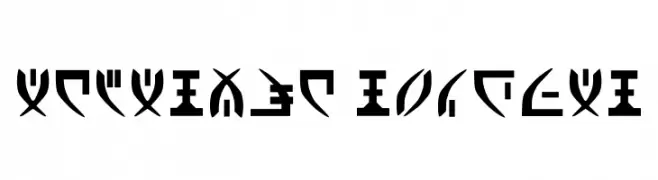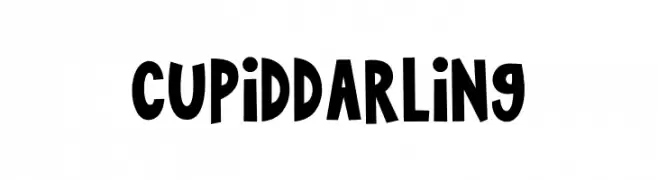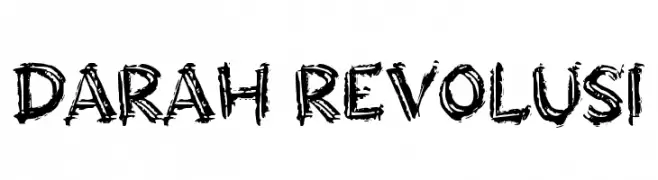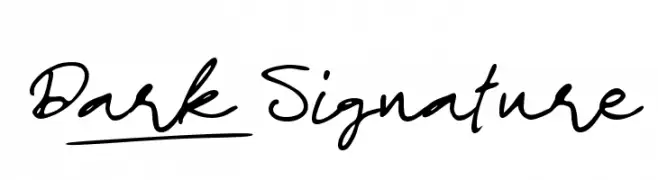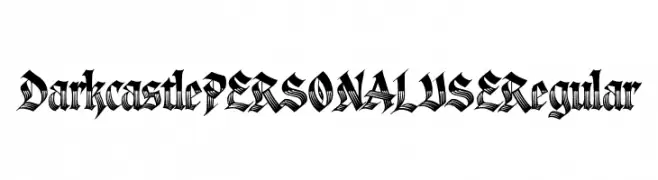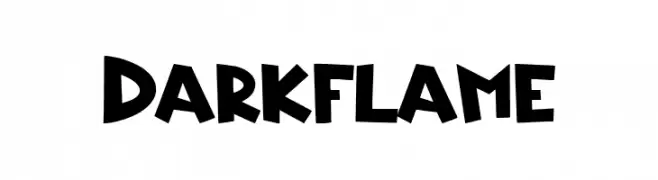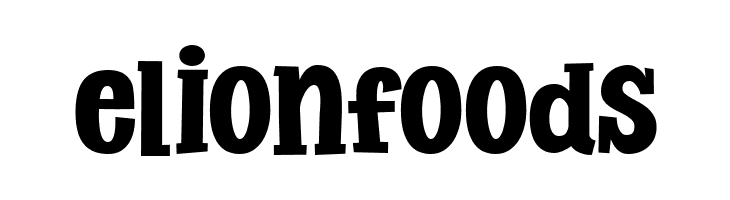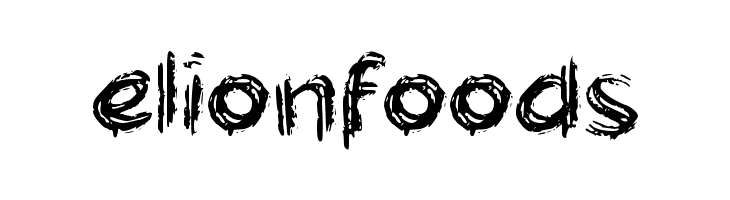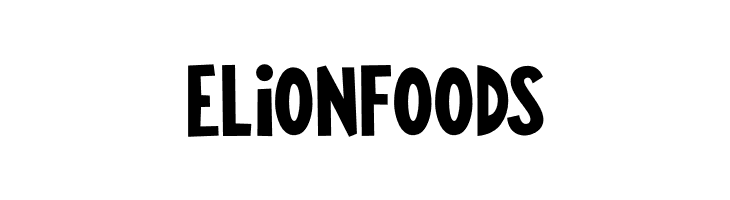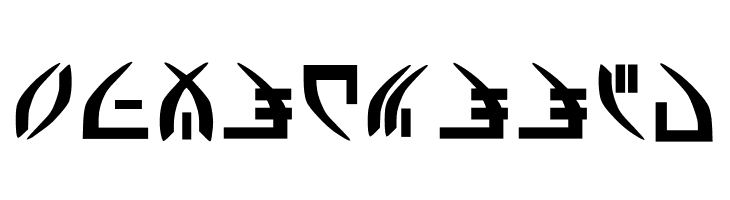
A bold, playful font with thick, rounded serifs and a strong presence.
A bold, textured font with a brush-painted, rebellious style.
A distressed, chaotic font with a shattered, energetic appearance.
A dynamic, cursive script font with a natural, handwritten flow.
A bold, playful font with a quirky, hand-drawn style.
A playful, bold typeface with rounded, bubbly characters.
A playful, bold, and hand-drawn font with a whimsical style.
A bold, angular font with a futuristic and abstract design.
A decorative, alien-like font with bold, geometric shapes and a futuristic style.
A bold, gothic-style font with intricate, medieval-inspired details.